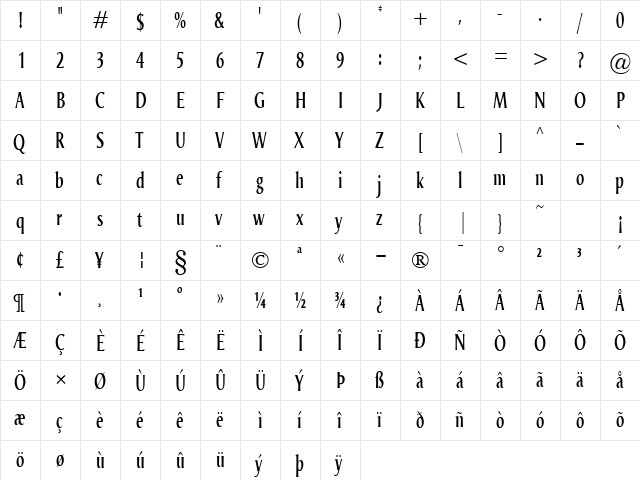
Odense Compr Regular Font Preview
Odense Compr Regular
Design Context for Odense Compr Typeface
Odense Compr takes a measured approach to typography — its balanced proportions and neutral character make it a reliable workhorse for both digital and print work.